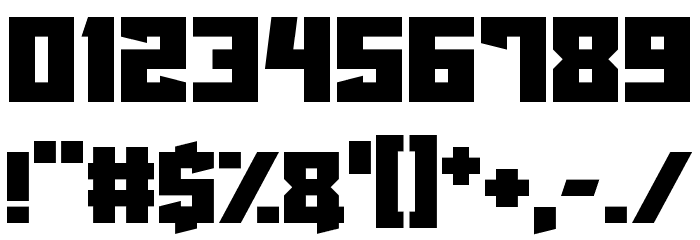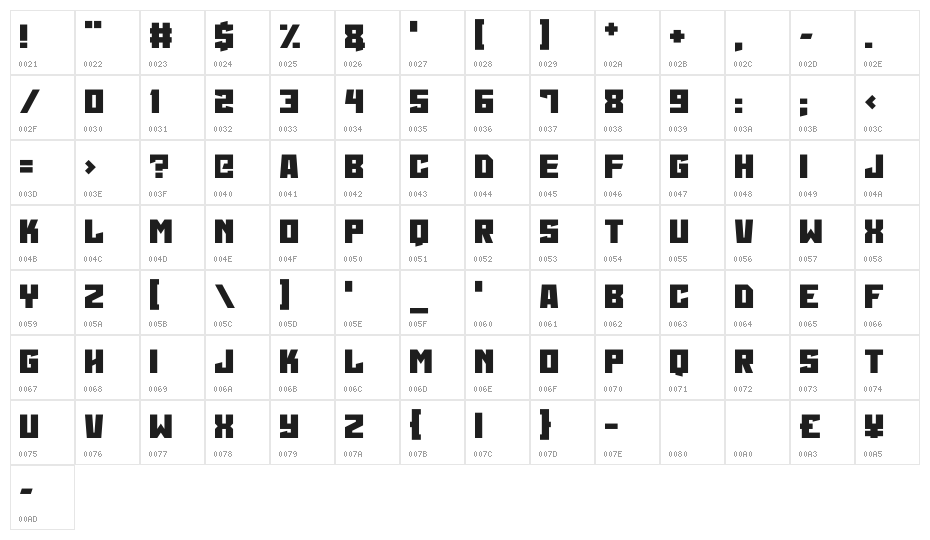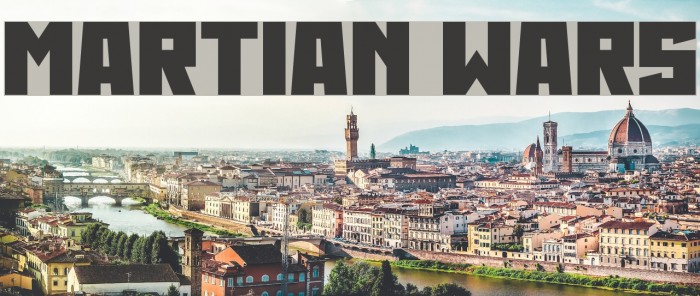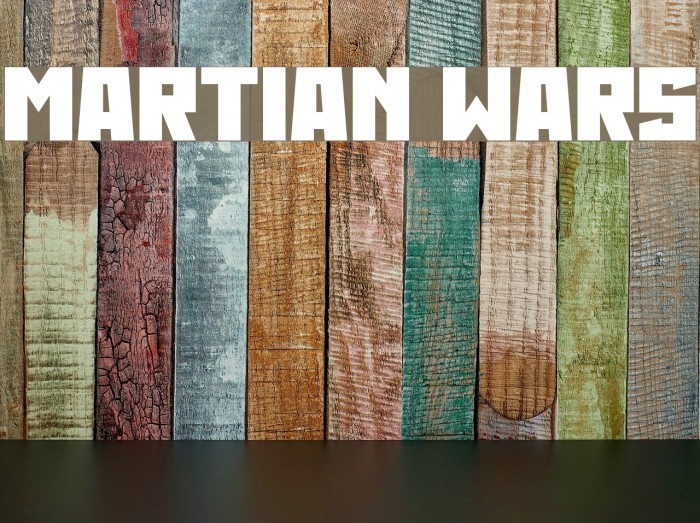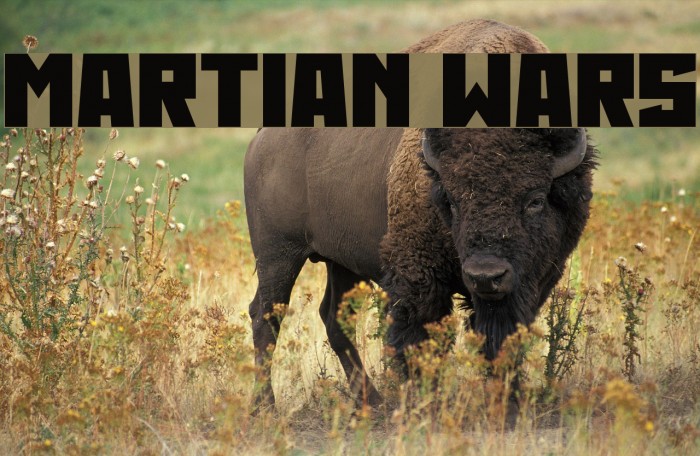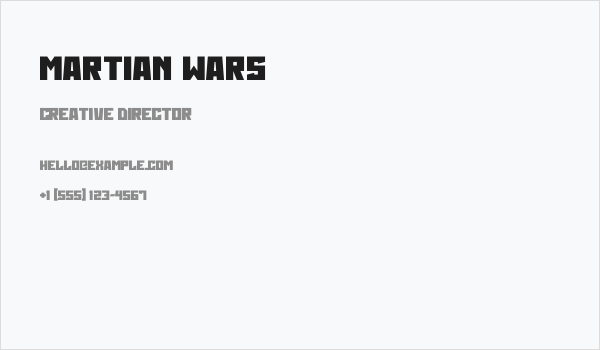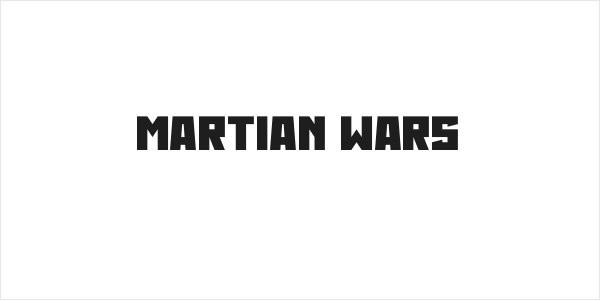
Martian Wars Font
Martian Wars Description
This font features a bold, geometric design with sharp angles and a futuristic aesthetic. The characters are blocky and robust, giving a sense of strength and modernity. The uppercase and lowercase letters maintain a consistent style, with a strong emphasis on straight lines and angular cuts. The numbers and special characters follow the same design principles, ensuring uniformity across all glyphs. The font's boldness and unique style make it stand out, ideal for projects that require a strong visual impact.